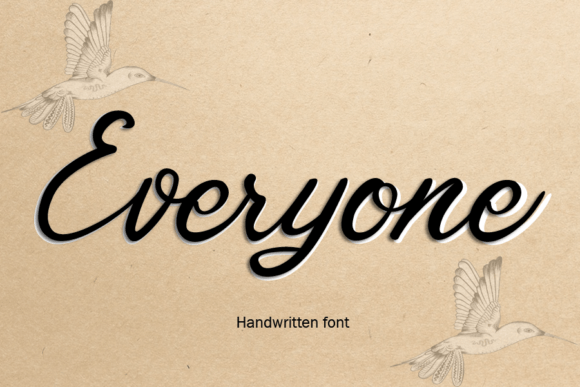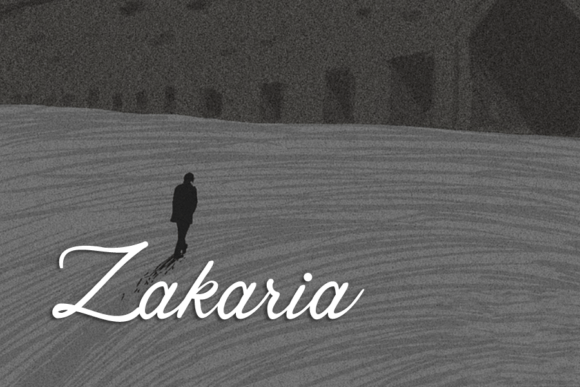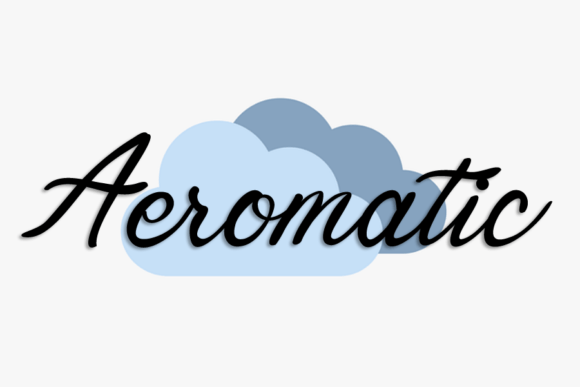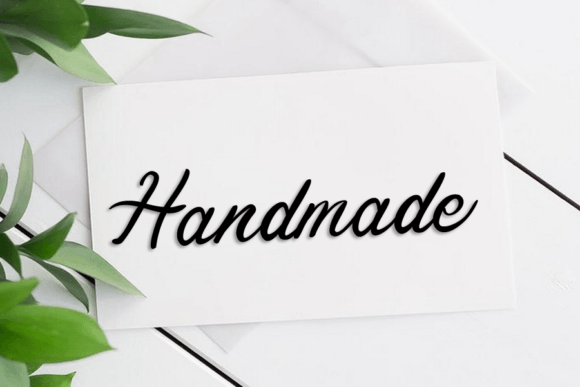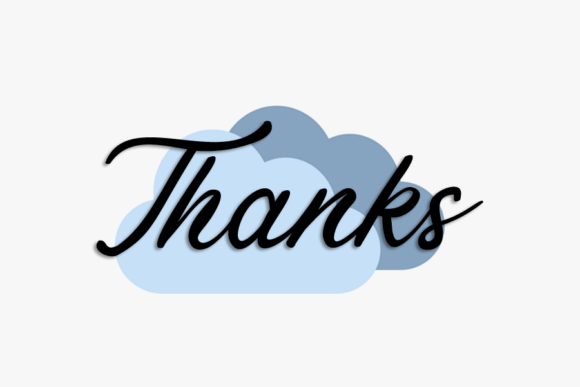
Everyone Font
About Everyone Font
The Everyone Font Download is a flowing script typeface with graceful strokes and an elegant touch. Designed to bring sophistication and beauty to your projects, this font combines the charm of traditional calligraphy with a modern, stylish twist. Its balanced flow ensures smooth readability, making it perfect for both professional and personal design work.
The timeless style of Everyone Font makes it a must-have addition to your design toolkit. Each curve and line has been carefully crafted to add refinement and uniqueness to your projects.
Features of Everyone Font
The Everyone Font Download offers a variety of features that make it stand out:
• Flowing script design with natural rhythm
• Elegant and distinct style for timeless appeal
• Versatile usability across digital and print media
• Clean and smooth strokes, ensuring readability
• Perfect for creative professionals and hobbyists alike
Best Uses for Everyone Font
The Everyone Font Download can be applied to a wide range of projects. Here are some of the most common uses:
• Wedding invitations – Add a romantic and timeless touch
• Logos and branding – Create elegant and memorable identities
• Greeting cards and stationery – Infuse charm into personal messages
• Product packaging – Elevate the look of your products with style
• Social media graphics – Enhance posts with classy, eye-catching typography
• Posters and quotes – Deliver messages with a refined flair
Why Choose Everyone Font
The Everyone Font Download is more than a script; it is a creative asset that enhances every project with elegance. Its versatility lies in its ability to adapt to both formal and casual designs, offering designers freedom to explore different creative directions.
With its timeless flow and stylish curves, Everyone ensures that your designs always look professional and attractive. Whether you are working on personal projects or commercial branding, this font adds a sense of refinement that is hard to replicate.
The Everyone Font Download delivers beauty, versatility, and timeless appeal. Its flowing script design works seamlessly across multiple applications, making it the perfect choice for designers seeking elegance in their projects. From wedding invitations to branding and digital content, Everyone brings charm and sophistication with every letter.